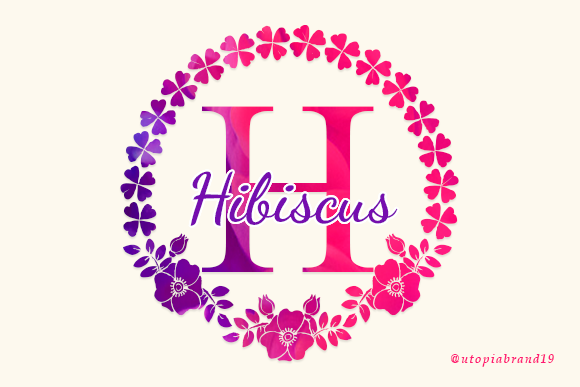
Step into a realm of elegance and visual splendor with Hibiscus Monogram, a font that exudes charm and sophistication. Crafted with meticulous attention to detail by the talented utopiabrand19, this decorative font is a masterpiece that will transform your creative projects into works of art.
Escape the mundane and embrace the allure of Hibiscus Monogram, a font that captures the essence of timeless beauty. Its intricate swirls, delicate flourishes, and graceful curves will add a touch of magic to your designs, making them stand out from the crowd.
With Hibiscus Monogram, your wedding invitations will be elevated to exquisite masterpieces, exuding an aura of romance and enchantment. Your stationary art will blossom into expressions of creativity, capturing the essence of your unique style. Your social media posts will shine with captivating allure, engaging your audience with their captivating charm. And your greeting cards will become cherished keepsakes, carrying messages of love, joy, and heartfelt sentiments.
The possibilities with Hibiscus Monogram are endless. Its versatile nature makes it the perfect choice for a wide range of projects, from elegant logos and enchanting branding elements to captivating posters and breathtaking flyers. Unleash your imagination and let your creativity soar as you explore the limitless potential of this exquisite font.
Immerse yourself in the world of Hibiscus Monogram and discover a treasure trove of inspiration. Its captivating beauty will ignite your passion for design, allowing you to create projects that resonate with your audience on a deeper level. Let Hibiscus Monogram be your muse, guiding you towards creative excellence.